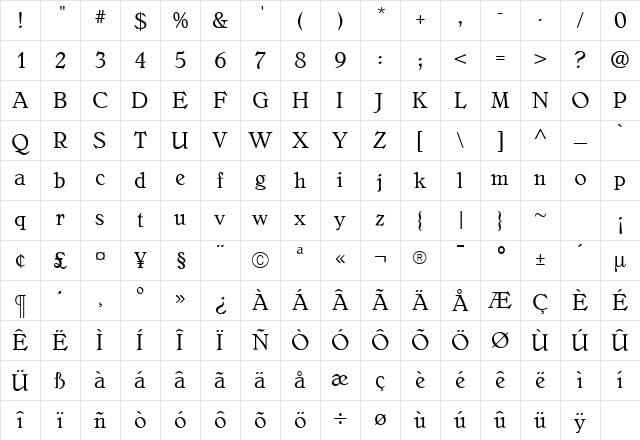
BelliniOriginal Regular
Foundry: Copr. Red Rooster Typefounders
Design Context for BelliniOriginal
BelliniOriginal is a composed and adaptable typeface that performs quietly and consistently across a wide range of design contexts.
Who designed the BelliniOriginal Regular font?